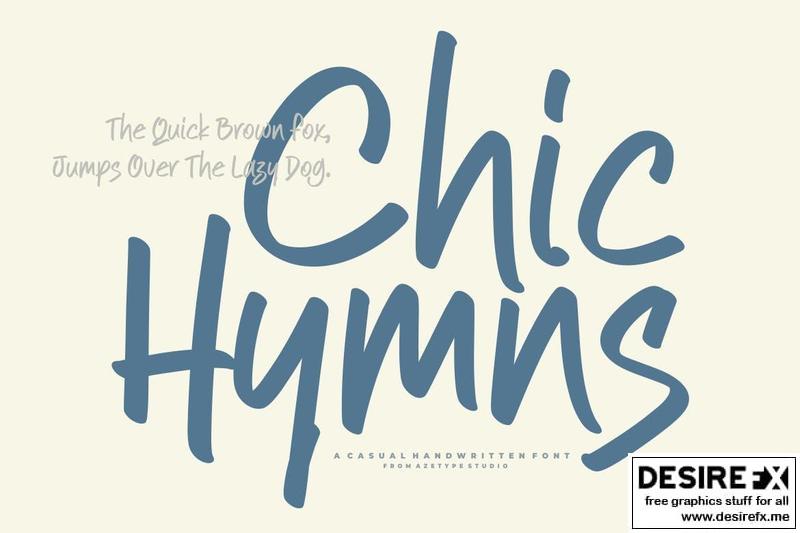
AZ Chic Hymns XD2DJKV
Introducing, AZ Chic Hymns is a casual handwritten font suitable for your design project needs, such as; social media posts, quotes, overlays on images, tagline logos, posters, print needs, website banners, and more.
- A set of uppercase and lowercase glyphs
- Number, Symbols, and Punctuation
Azetype Studio